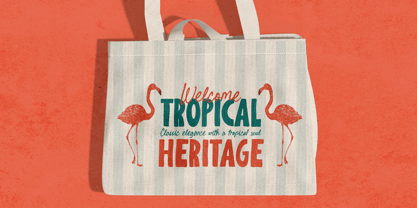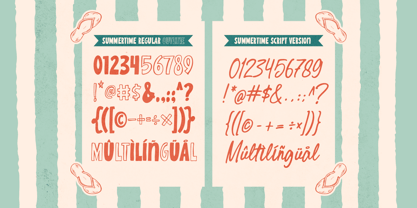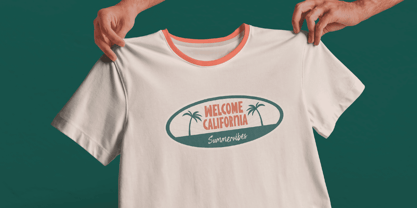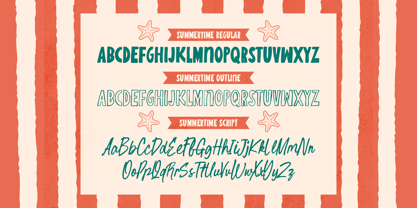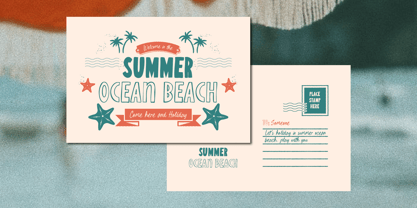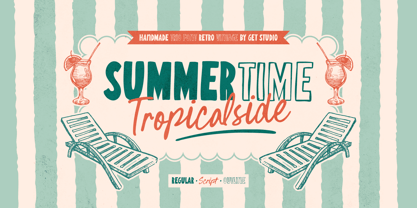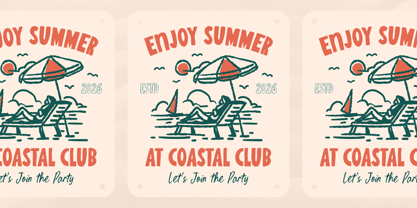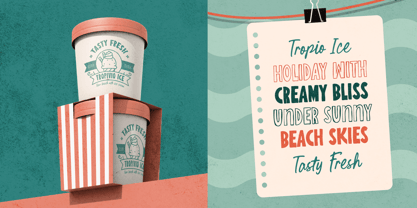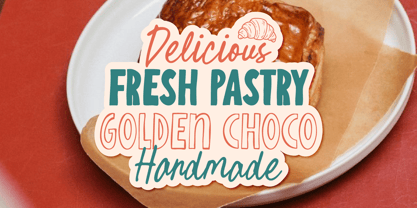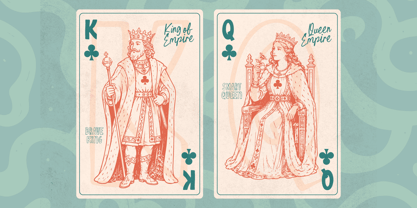
Summertime Tropicalside
by Get Studio
Summertime Tropicalside is a cheerful handmade font trio that captures the warmth of sunny days, tropical escapes, and vintage charm. Featuring a bold display, a playful script, and a naturally hand-drawn outline style, it gives your designs a fresh, relaxed, and full-of-personality look.
Perfect for branding, packaging, café menus, posters, apparel, stickers, and social media, Summertime Tropicalside helps you create eye-catching designs with ease. Mix and match the three styles to add a fun, nostalgic touch that instantly stands out.
Summertime Tropicalside